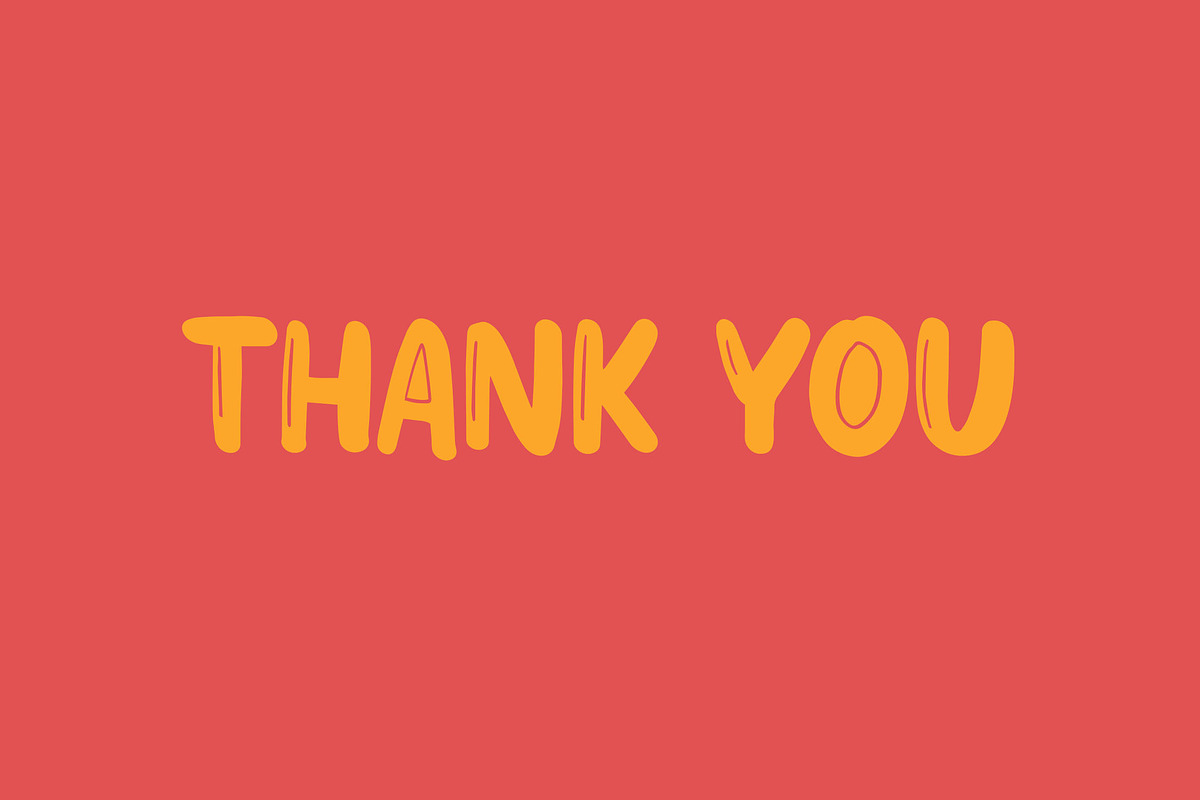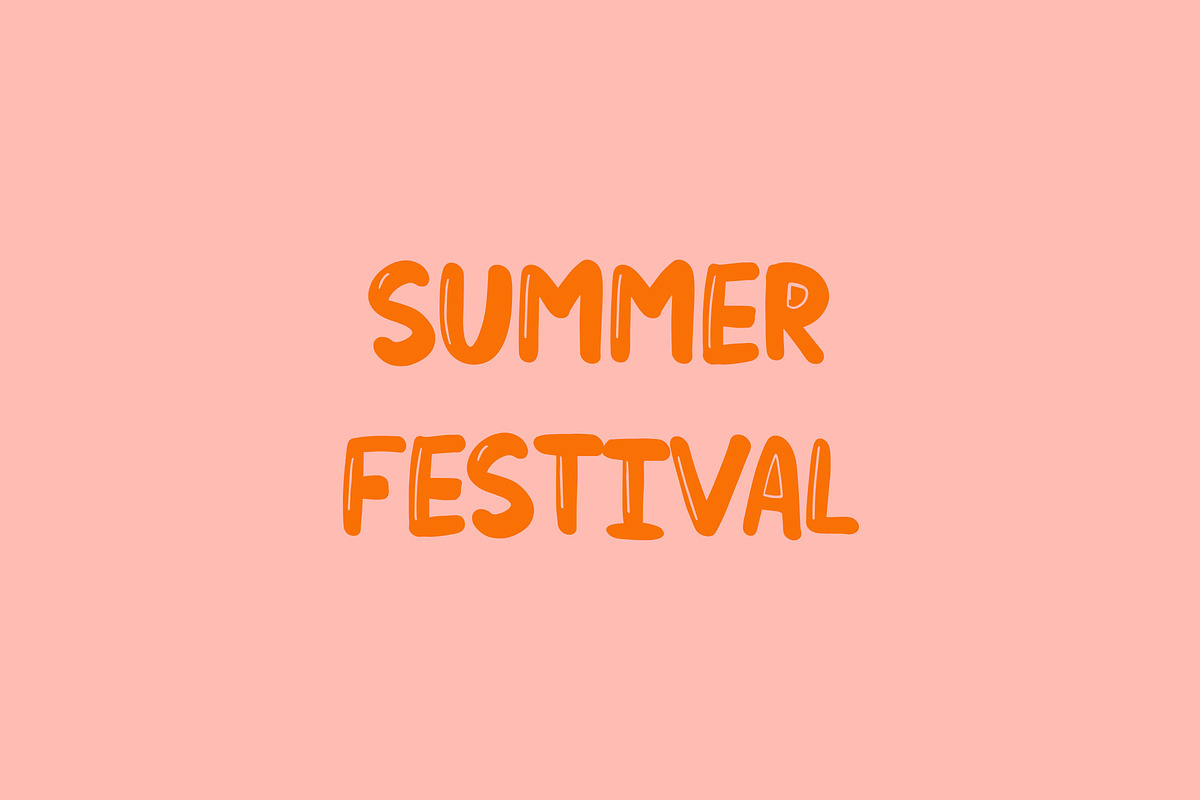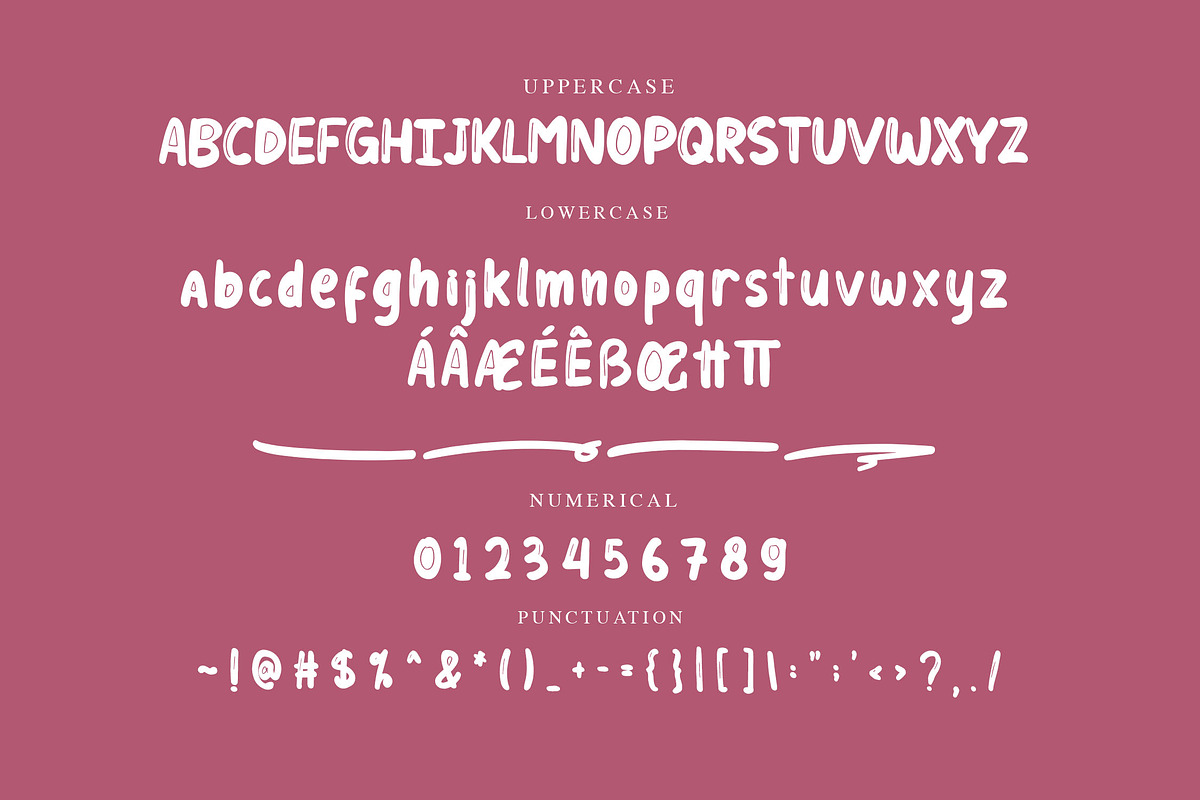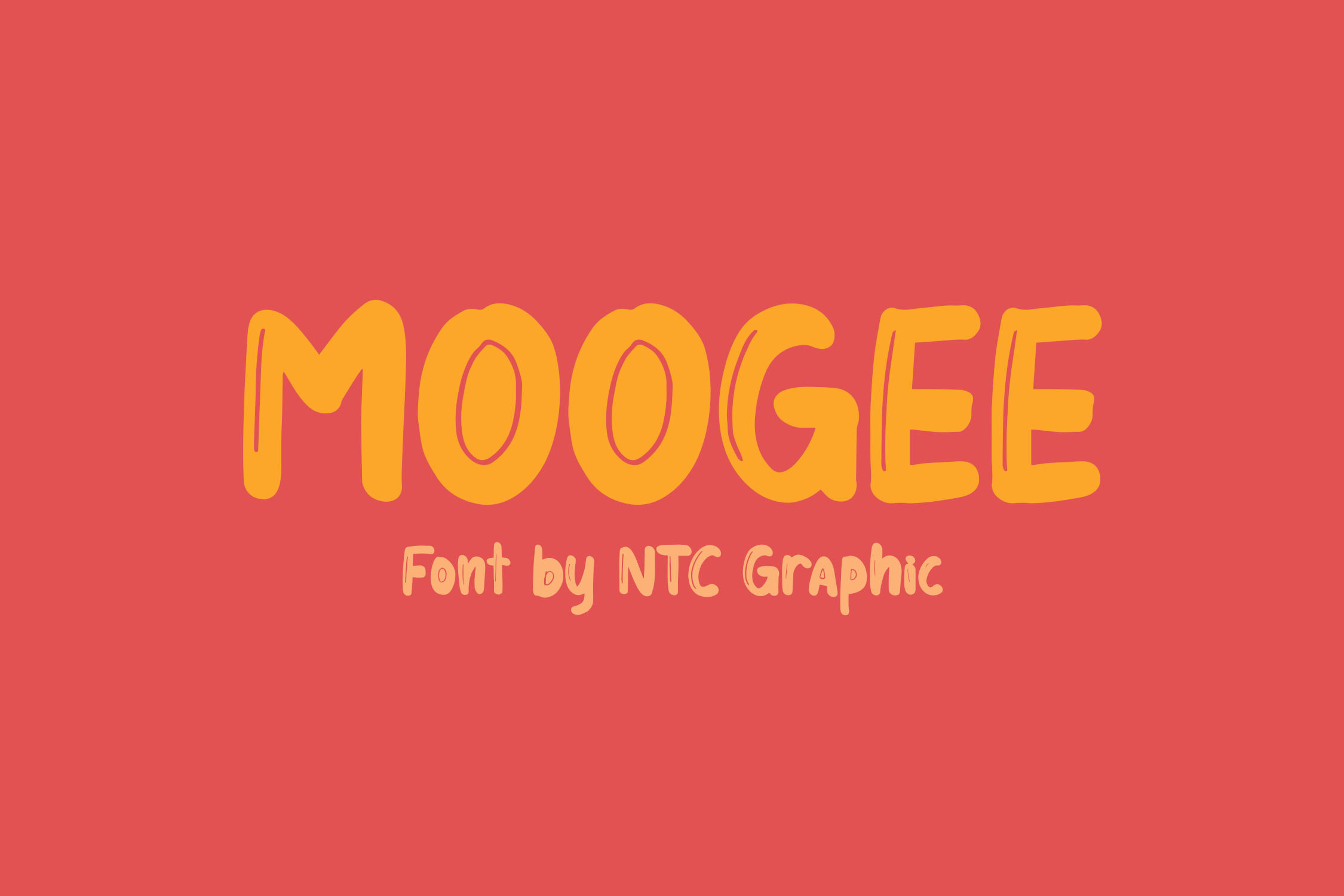
MOOGEE Playful Font
MOOGEE is a playful handwritten font with cartoon style. This font style made with unique shapes font characters are really good. Can be applied to support the graphic appearance of the product to be more attractive.
- Stylistic Alternate